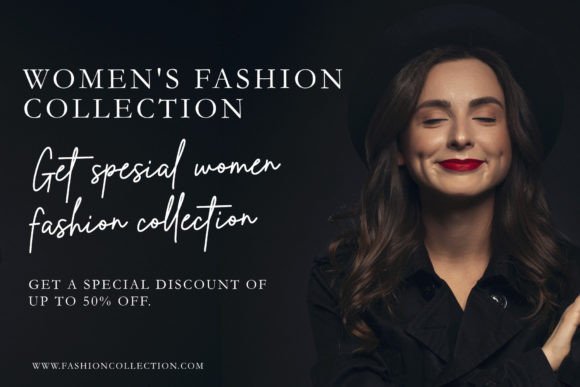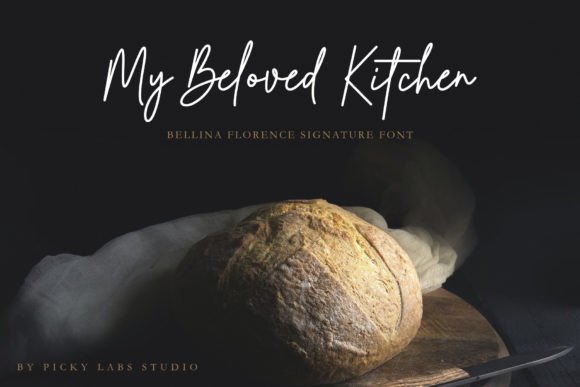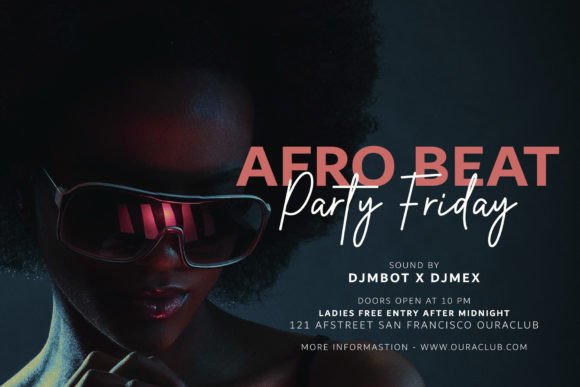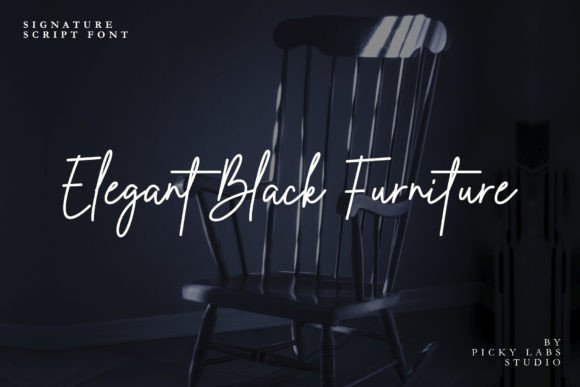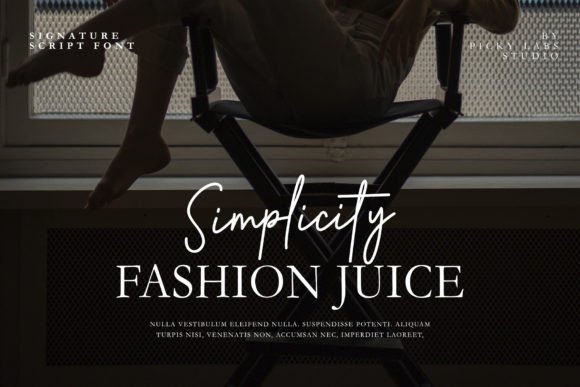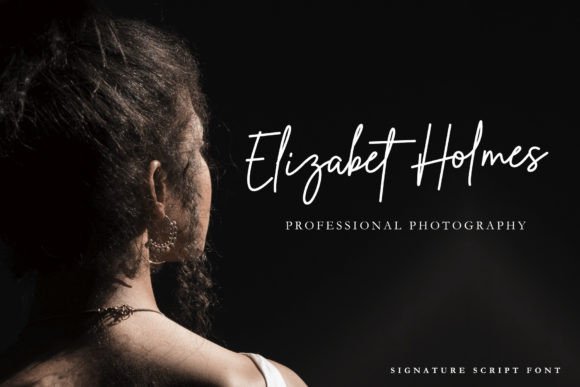
Meet Your New Signature Font: Bellina Florence Font
Have you ever been scrolling through social media, and a beautifully crafted post catches your eye? The typography is so elegant, so refined, that it instantly makes you feel something? For designers, that ‘something’ is often a mix of inspiration and envy – wishing they could create something just as stunning.
Enter the Bellina Florence Font, a smooth signature monoline font that brings a touch of handmade charm to any project. This versatile font is designed to add a strong character to each letter, making it perfect for branding projects, logotypes, and so much more. Whether you’re working on a wedding design, social media post, or product packaging, Bellina Florence Font is sure to elevate your work and give it that special something.
With its unique blend of elegance and personality, the Bellina Florence Font is a valuable addition to any designer’s toolkit. Its versatility and character make it an ideal choice for a wide range of projects, from branding and advertising to photography and stationery.
Bellina Florence Font Key Features
- Unique Characteristics: Elegant, cursive script with a touch of vintage charm; perfect for invitations, greeting cards, and wedding stationery
- Font Style: Script, Cursive
Bellina Florence Font Review
Overall, I think Bellina Florence is a beautiful script font that can add a touch of elegance to any design. ✨ The connected strokes and flowing lines give it a sophisticated feel that’s perfect for luxury brands, fashion, or fine dining.
The font has a good range of weights and styles, making it easy to find the right fit for your project. ✨ The bold weights are particularly striking, and the italic styles add some nice flair.
- Beautiful, elegant script design
- Good range of weights and styles
- Bold weights are striking
- Italic styles add nice flair
- Some characters may not be fully connected in certain weights
- May not be suitable for body text due to its script nature
- Can be difficult to read in small sizes
Overall, I think Bellina Florence is a great choice for designers looking to add a touch of sophistication to their projects. ✨ While it may have some limitations, the benefits far outweigh the drawbacks.
The Bellina Florence font is ideal for designs that require a classic, elegant look. Use it for wedding invitations, business cards, and other formal documents. The font’s versatility also makes it suitable for use in digital media, such as social media graphics and blog posts.
To get the most out of the Bellina Florence font, use it in combination with other elegant fonts to create a sophisticated design. Experiment with different font sizes and styles to add visual interest to your text. Additionally, use the font’s bold and italic styles to emphasize important information.